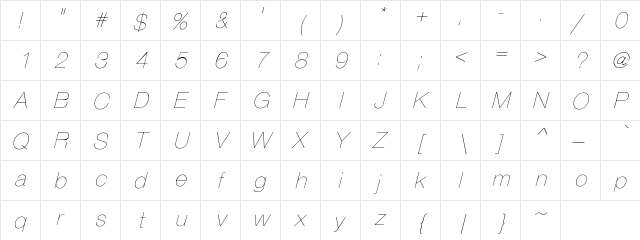
HelveticaObl-Th Regular
Design Context for HelveticaObl-Th Typeface
HelveticaObl-Th takes a measured approach to typography — its balanced proportions and neutral character make it a reliable workhorse for both digital and print work.